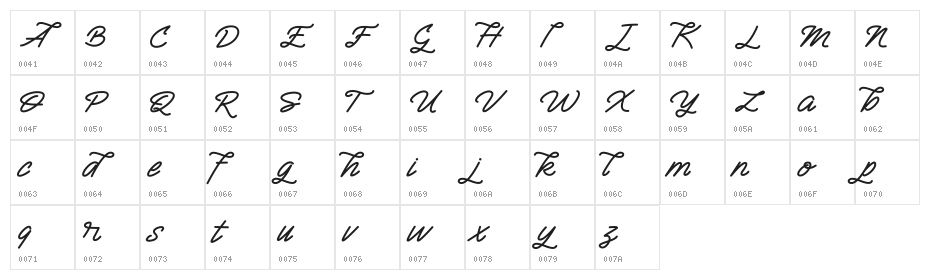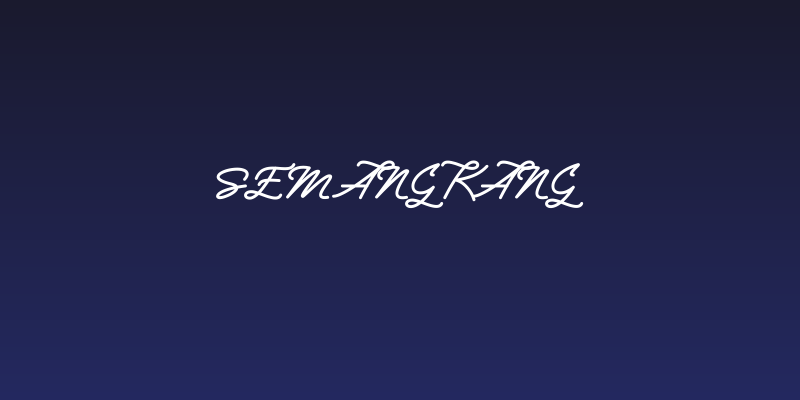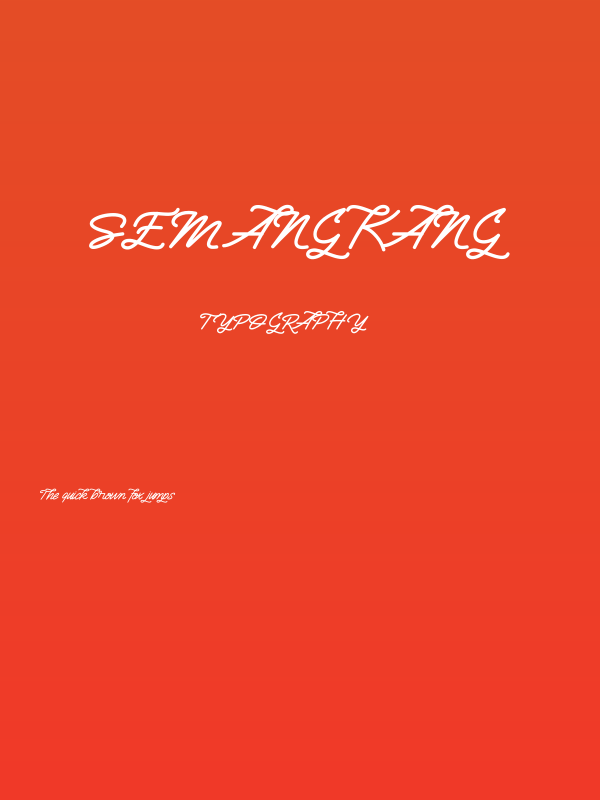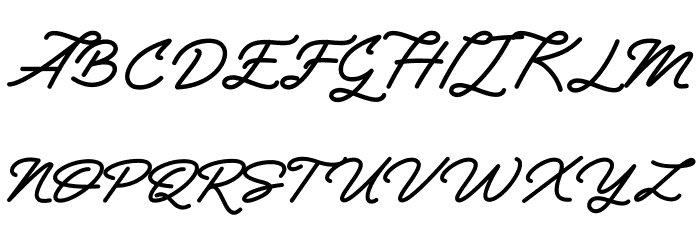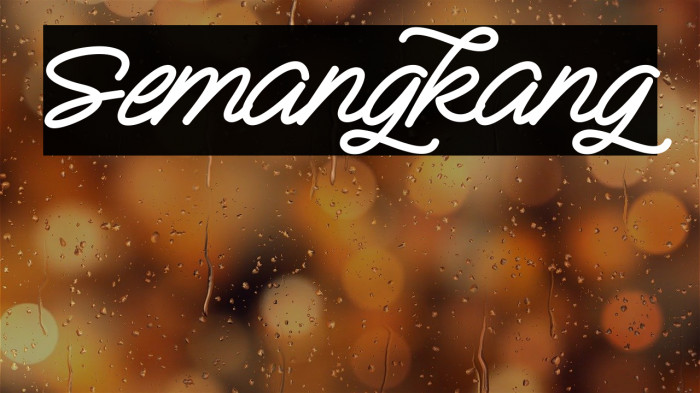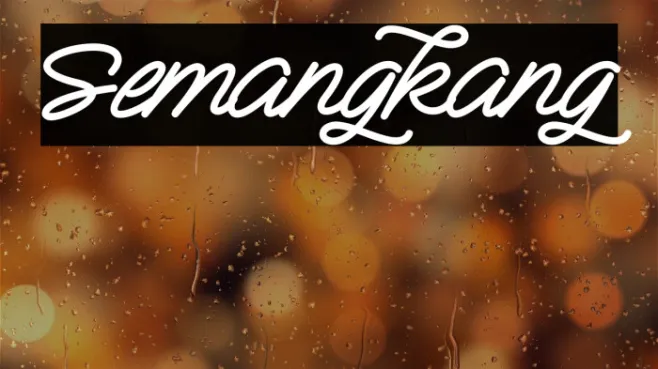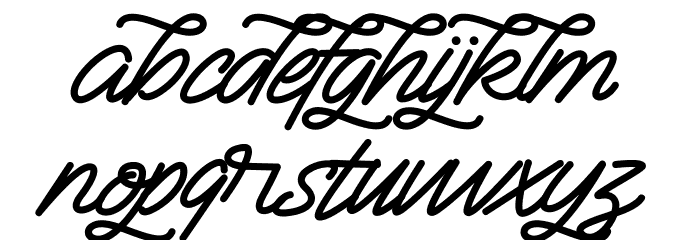
Semangkang Font
Semangkang Description
This font features an elegant, flowing script style with a handwritten appearance. The characters are interconnected with smooth, looping strokes, giving it a sophisticated and artistic flair. The uppercase letters are slightly larger and more ornate, while the lowercase letters maintain a consistent flow, enhancing readability. The numbers and special characters are designed to match the overall aesthetic, ensuring a cohesive look across all text. This font is perfect for projects that require a touch of elegance and personal style.